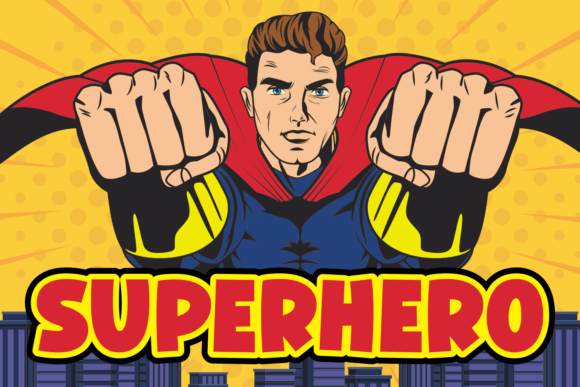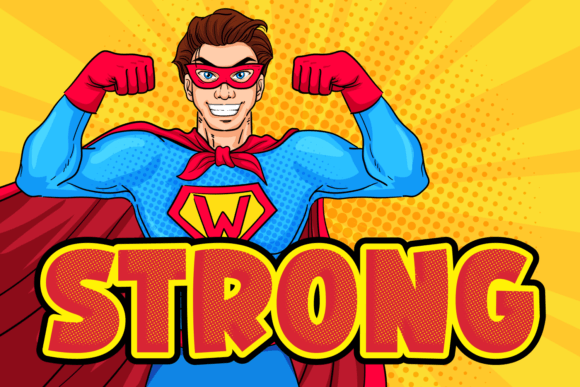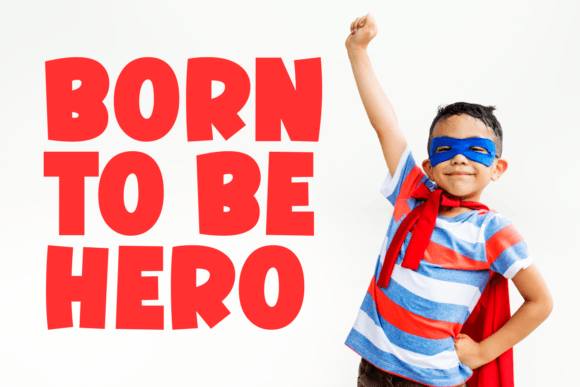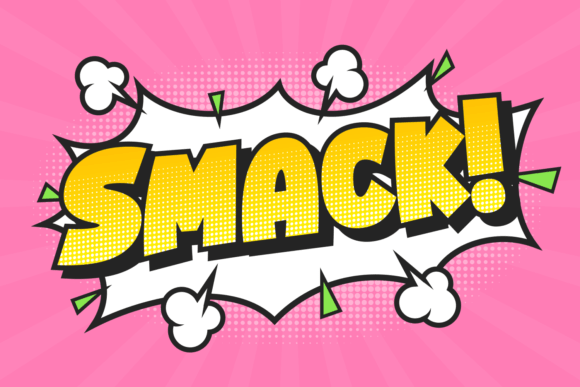
The Power of Typography: Unleash Your Inner Superhero with Comic Heroic Font
Remember that moment when you’re brainstorming ideas for your next design project and you’re stuck? You know, the one where you’re scrolling through font libraries, trying to find the perfect combination of style and impact? That’s where the magic happens, and that’s exactly where the Comic Heroic Font comes in.
This adorable and powerful display font is the perfect solution for designers looking to add a touch of superhero flair to their typography. With its thick and chunky characters, the Comic Heroic Font is sure to grab attention and make a statement. Whether you’re working on a comic book-inspired project or just want to add some excitement to your design, this font is a valuable addition to any designer’s toolkit.
Comic Heroic Font Key Features
- Font Family: Comic Heroic Font is a sans-serif font family designed for comic books, graphic novels, and other visual media.
- Unique Characteristics: Comic Heroic Font features a bold, dynamic design with exaggerated letterforms and a distressed texture, evoking a sense of energy and action.
Comic Heroic Font Review
Overall, I’m impressed with the Comic Heroic Font’s unique charm and flair. ✨ The bold, exaggerated lines and playful style make it perfect for comic books, posters, and other designs that require a lighthearted, action-packed feel.
The font’s versatility is another major strength. ✨ It comes in a range of weights and styles, from light and whimsical to heavy and dramatic. This allows designers to tailor the font to their specific needs and create a consistent look across different design elements.
Here are some specific strengths and weaknesses I’ve noticed:
- ✨ Unique and recognizable style that grabs attention
- ✨ Versatile and adaptable to different design contexts
- ⚠️ Limited use in formal or professional settings due to its playful nature
- ⚠️ May not be suitable for text-heavy designs where legibility is crucial
Overall, I’d say the Comic Heroic Font is a great choice for designers looking to add a touch of excitement and energy to their work. While it may not be the best fit for every project, it’s definitely a valuable addition to any designer’s toolkit.
The Comic Heroic Font is perfect for creating bold, eye-catching headlines and titles. Use it to add a touch of comic book flair to your designs. It’s also great for creating titles for videos, podcasts, or other digital content.
Remember to experiment with different font sizes and styles to get the most out of the Comic Heroic Font.
Alternatives to Comic Heroic Font
Comic Heroic Font is a unique, hand-drawn font that can add a touch of comic book flair to designs. However, it may not be suitable for all projects. Here are a few alternatives that can provide a similar feel:
Great Vibes is a handwritten font that is often used for titles, headings, and quotes. It has a similar playful, handwritten feel to Comic Heroic Font, but is more polished and refined. Use Great Vibes for designs that require a sense of elegance and sophistication.
Comparison to Comic Heroic Font: While both fonts have a handwritten feel, Great Vibes is more polished and refined, making it a better choice for designs that require a touch of elegance.
Pacifico is a beautiful, handwritten font that is often used for titles, headings, and body text. It has a similar laid-back, beachy feel to Comic Heroic Font, but is more versatile and can be used for a wide range of designs. Use Pacifico for designs that require a sense of relaxation and calmness.
Comparison to Comic Heroic Font: While both fonts have a laid-back feel, Pacifico is more versatile and can be used for a wide range of designs, making it a better choice for projects that require a lot of flexibility.
Q: Can I customize the Comic Heroic Font to fit my specific design needs?
The Comic Heroic Font is designed to be highly customizable. You can adjust the font’s size, color, and style to fit your specific design needs. Additionally, the font’s OpenType features allow for advanced typographic control, including ligatures, swashes, and contextual alternates.